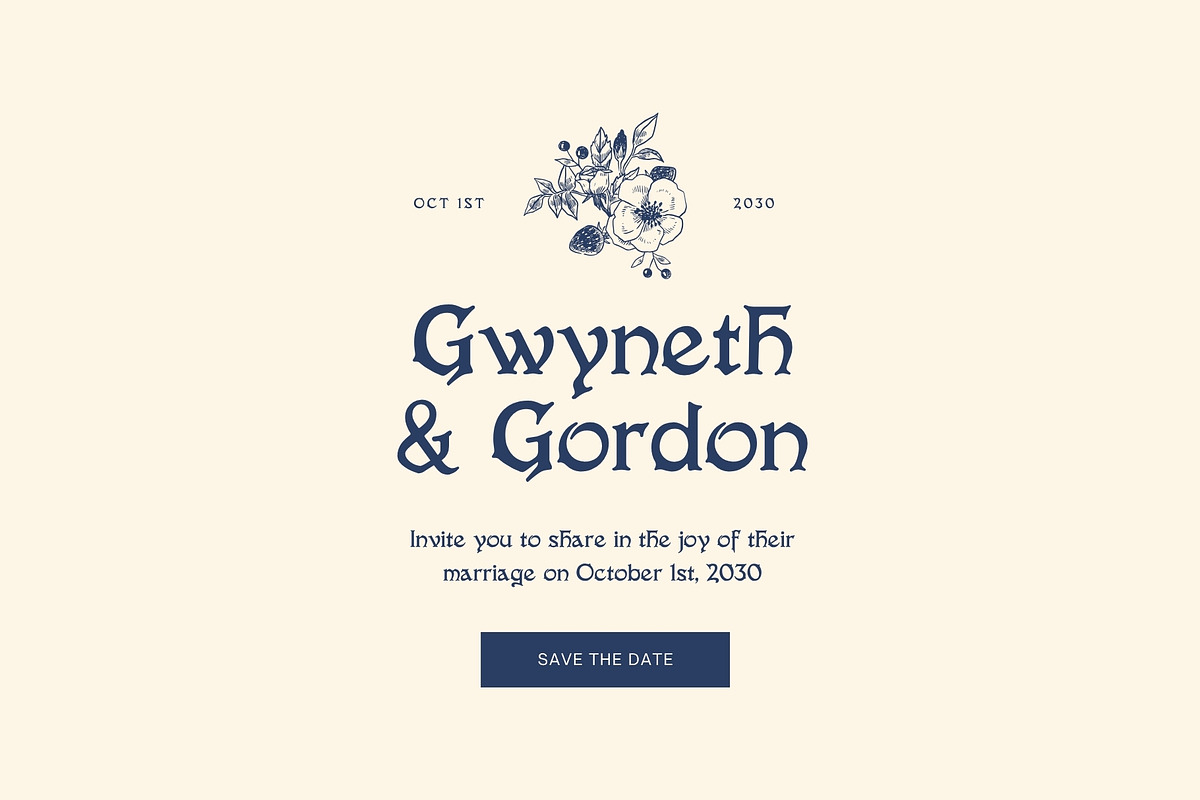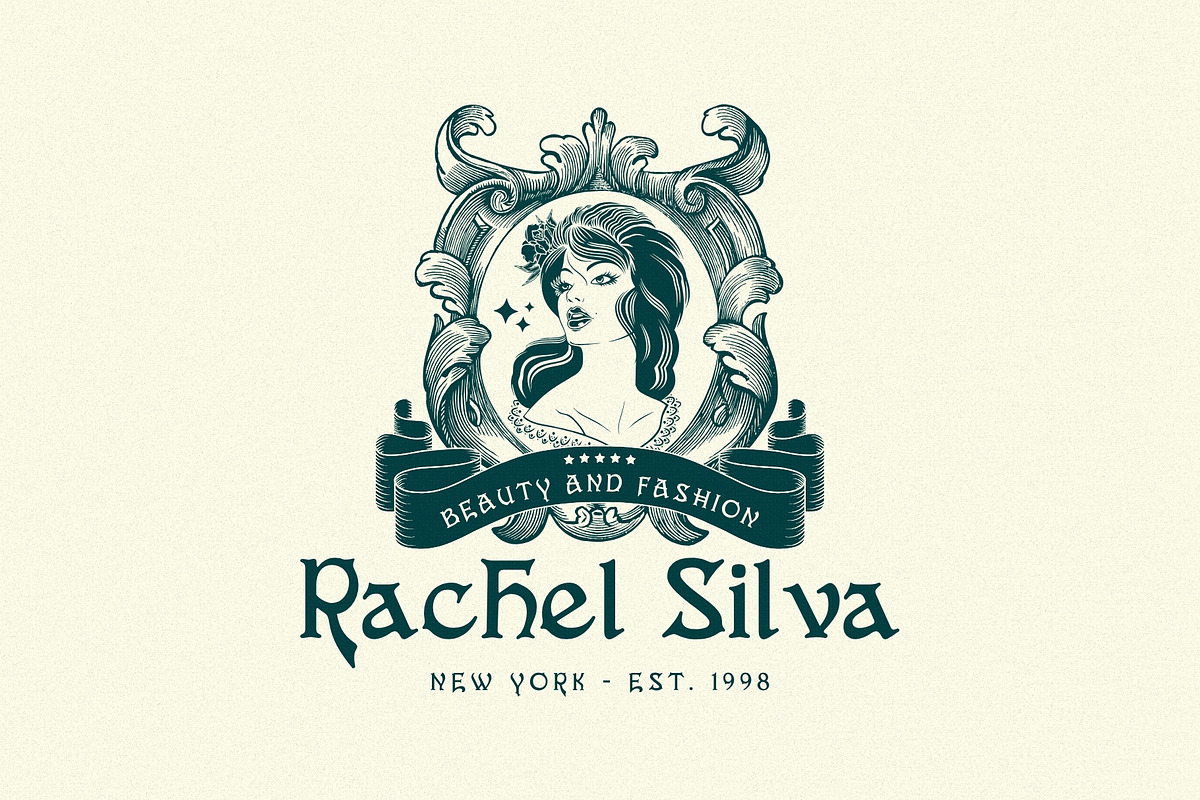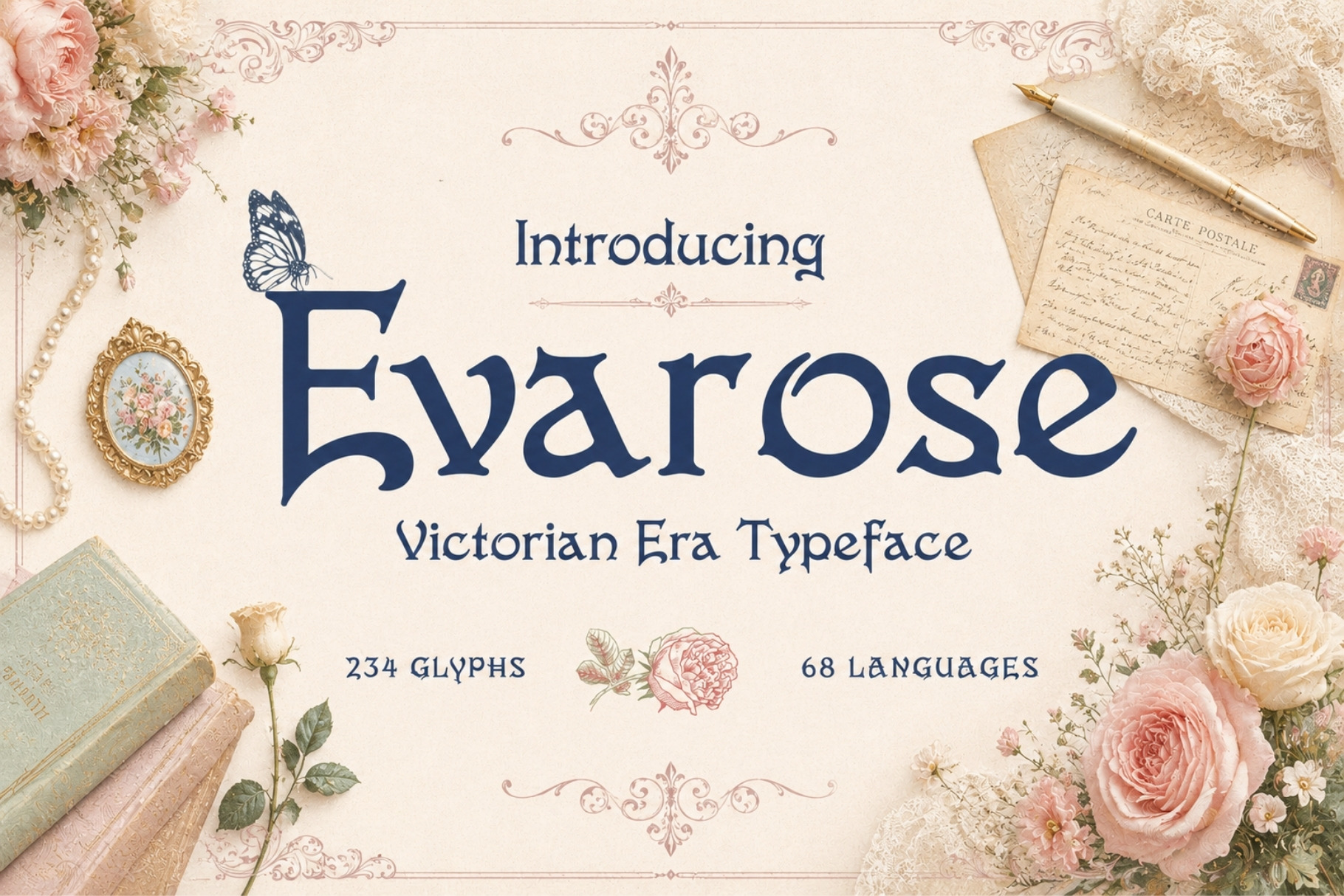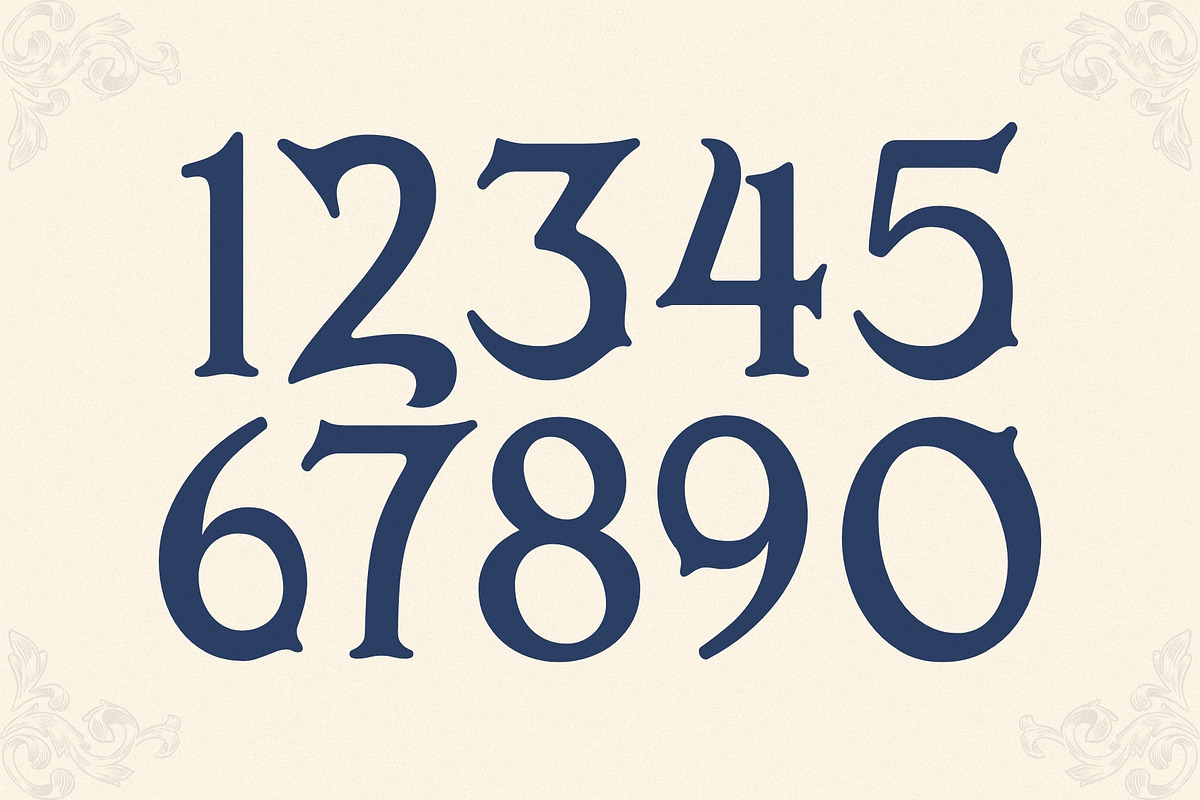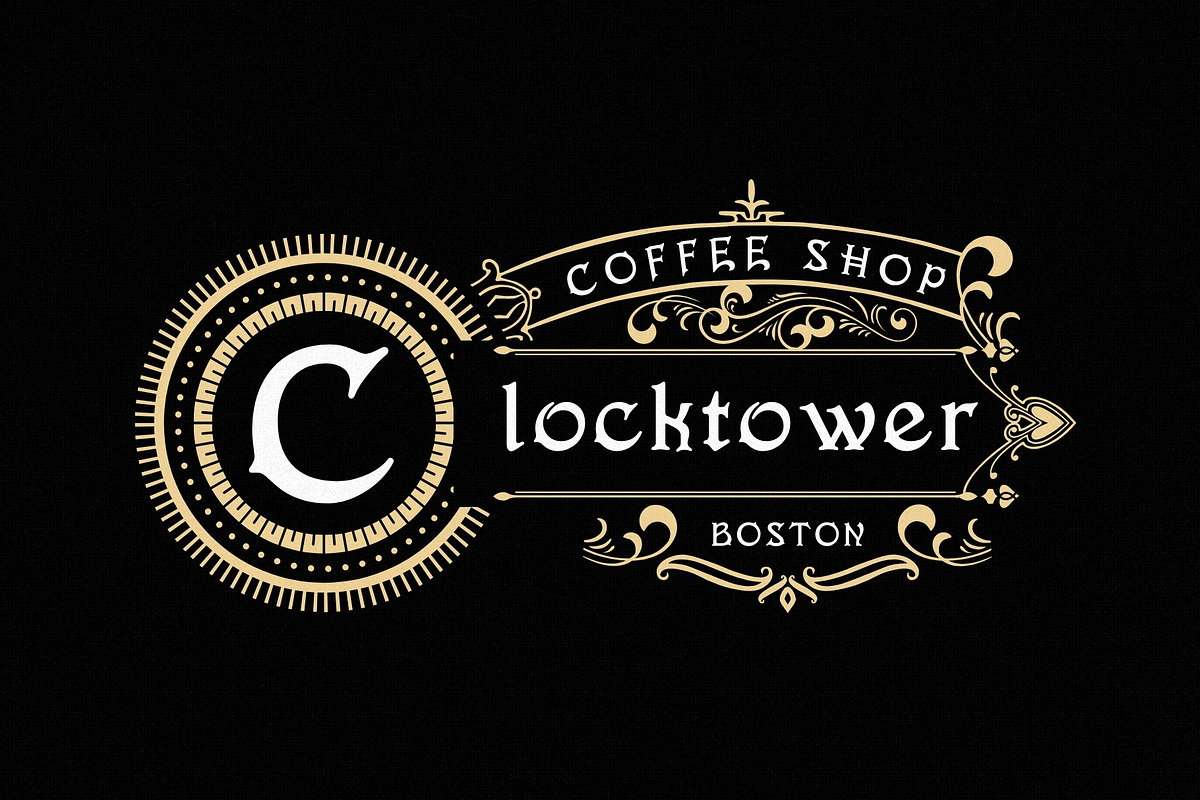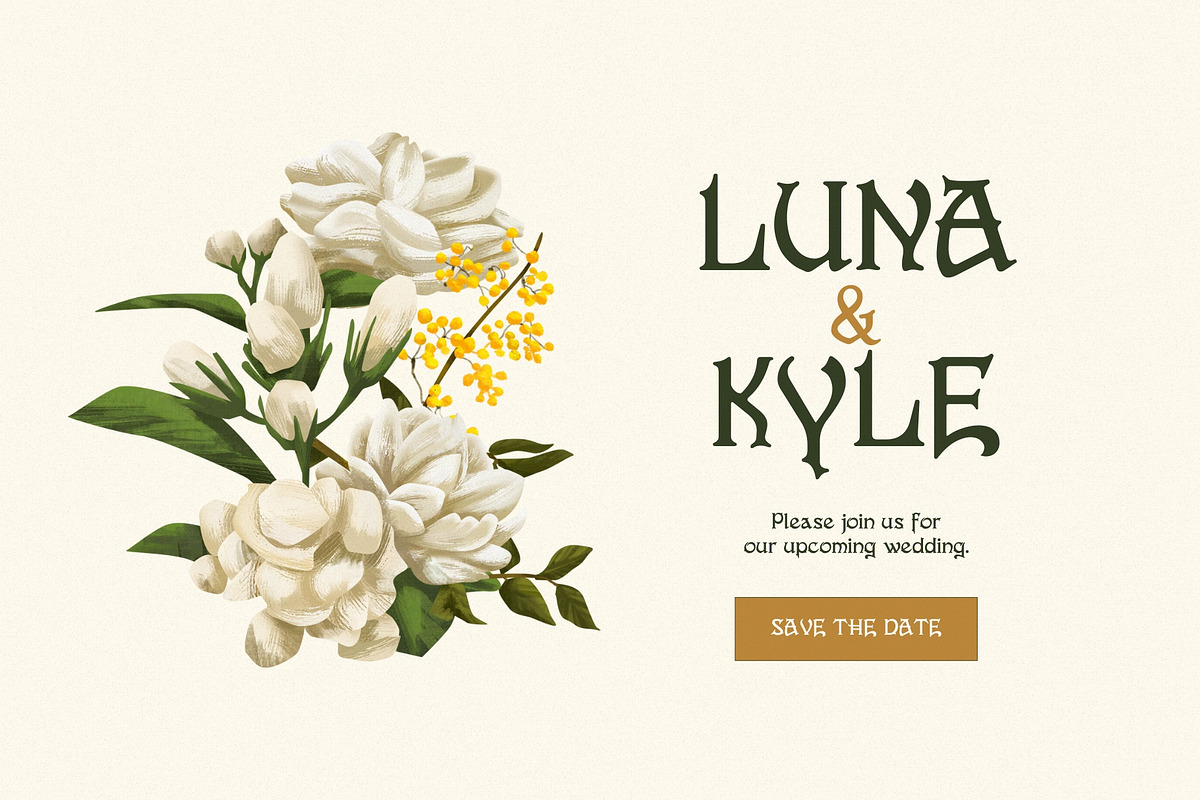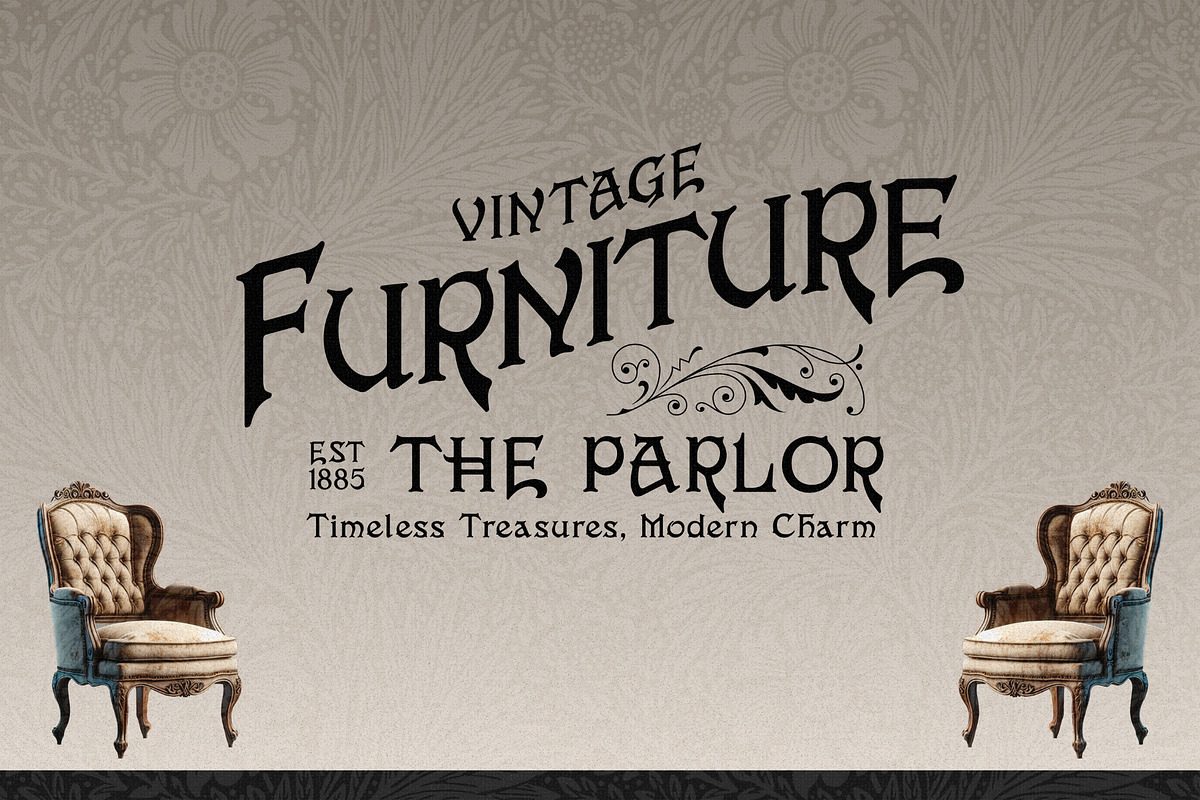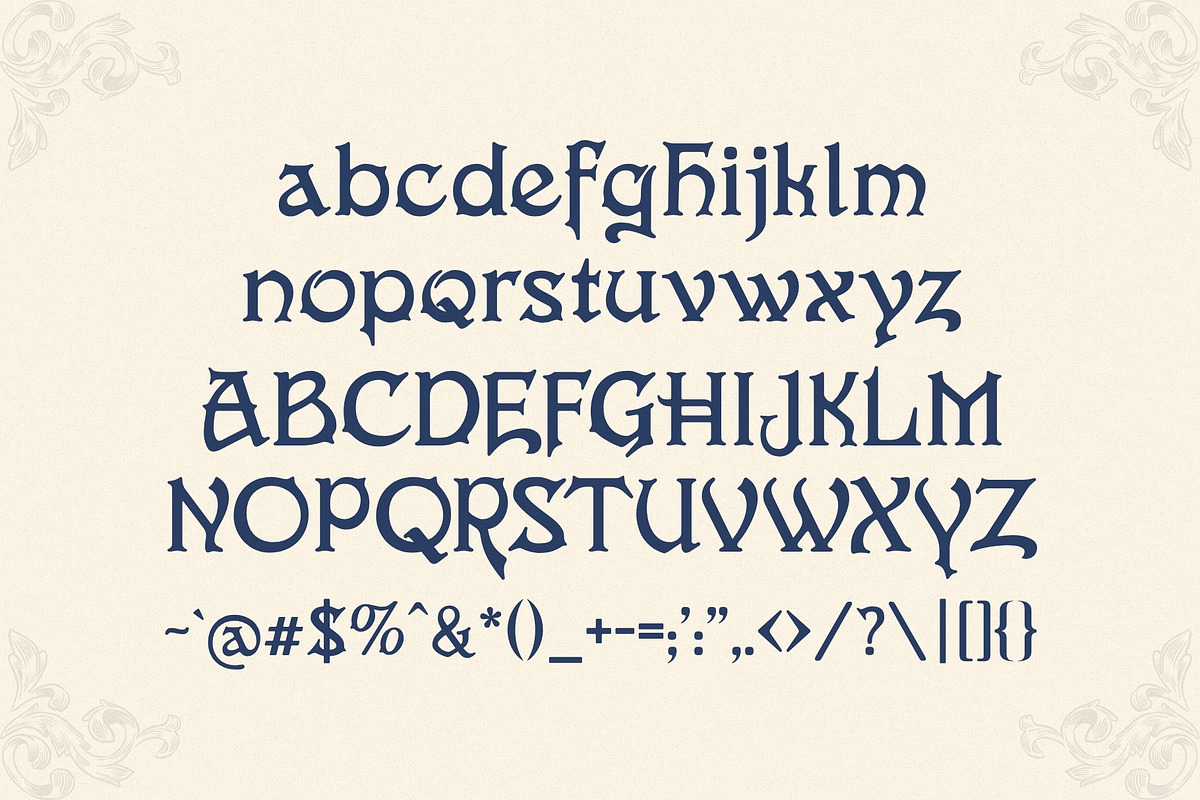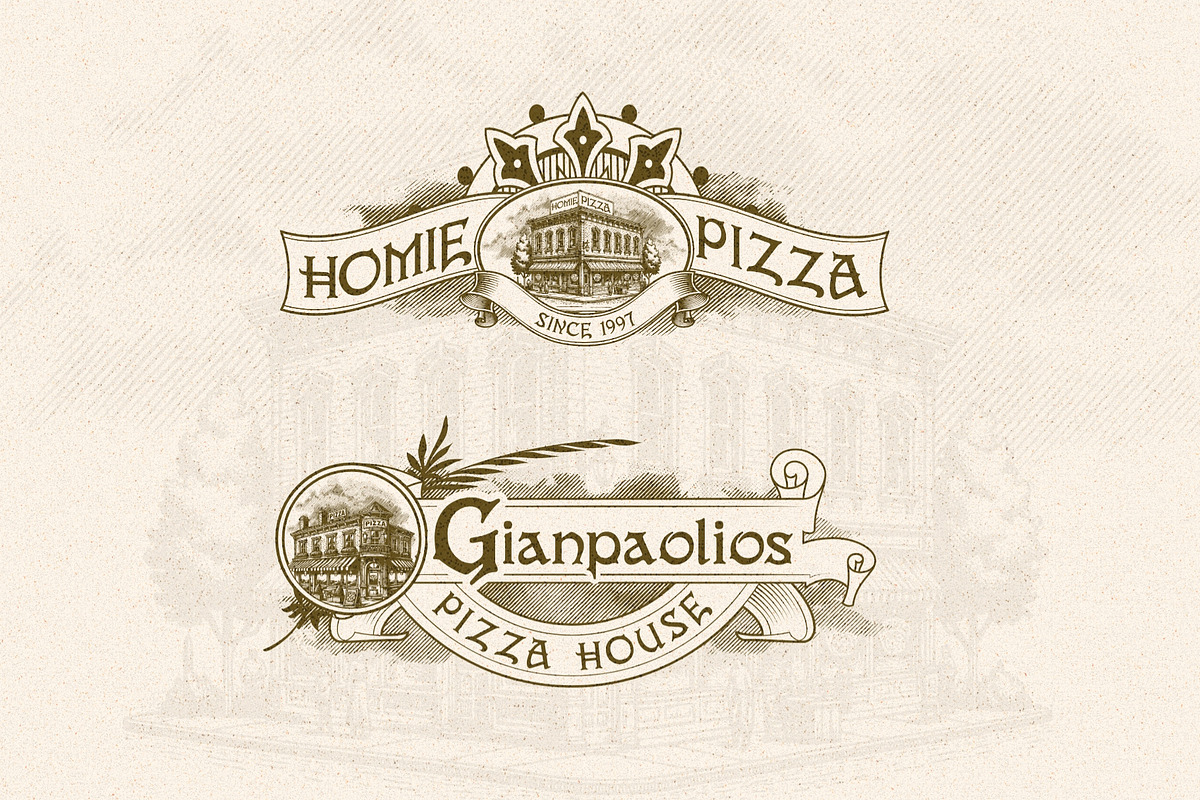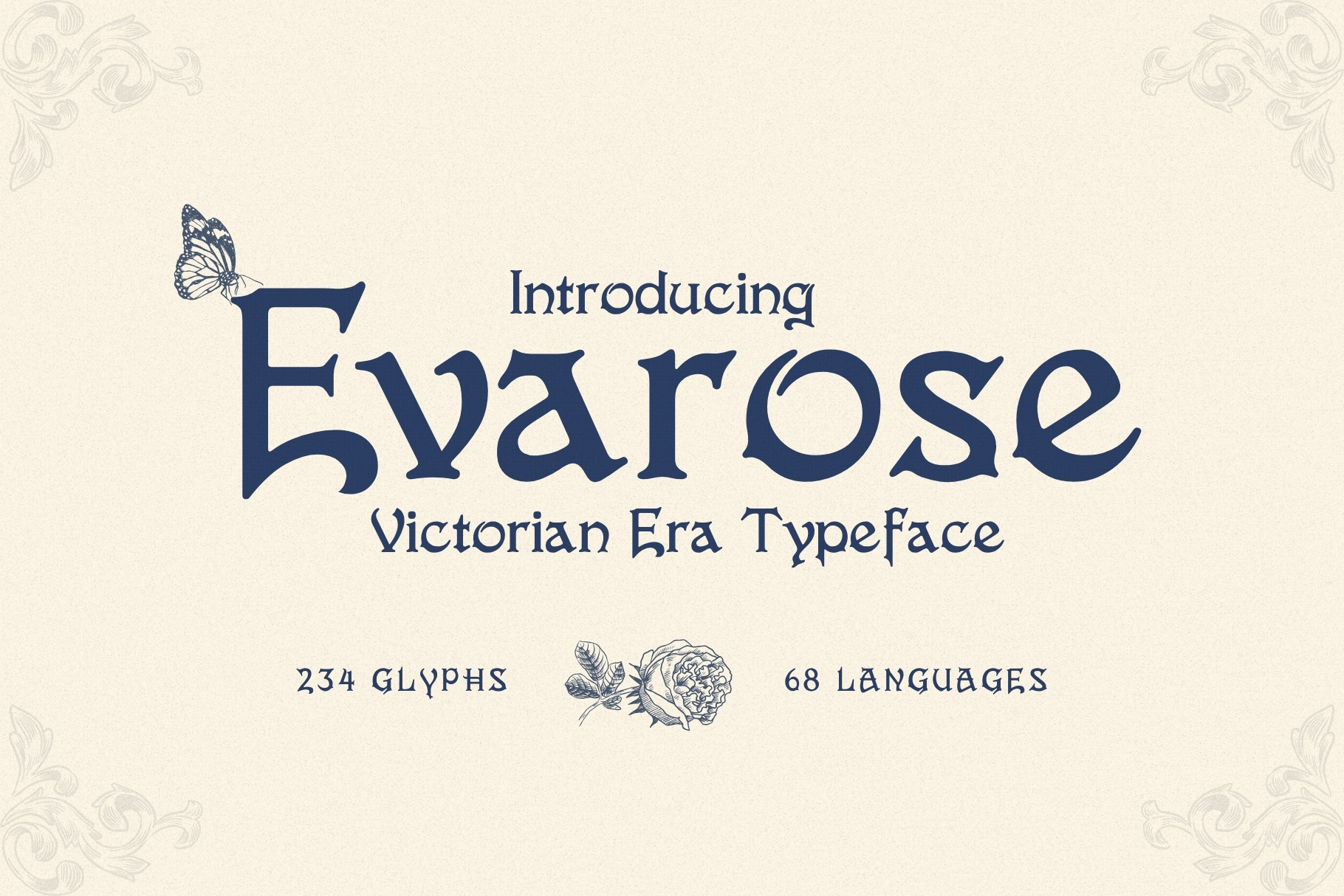
Evarose - Victorian Era Typeface
Step into the elegance of the past with Evarose, a stunningly refined typeface inspired by the intricate charm and ornate craftsmanship of the Victorian era. Every curve, serif, and detail of this typeface is a love letter to the 19th century, painstakingly researched and designed to echo the typography used in antique posters, romantic letters, and regal signage.
Evarose isn’t just a font; it’s a timeless experience. With 234 carefully crafted glyphs and support for 68 languages, it’s as functional as it is beautiful. Whether you're designing luxurious wedding invitations, crafting vintage logos, curating antique-inspired packaging, or creating social media posts that demand attention, Evarose will infuse your work with authentic, old-world sophistication.
This typeface is the result of countless hours of research, precision, and passion, ensuring that what you’re using isn’t just vintage-themed, it’s historically grounded. Evarose captures the spirit of a bygone era with a modern designer’s finesse.